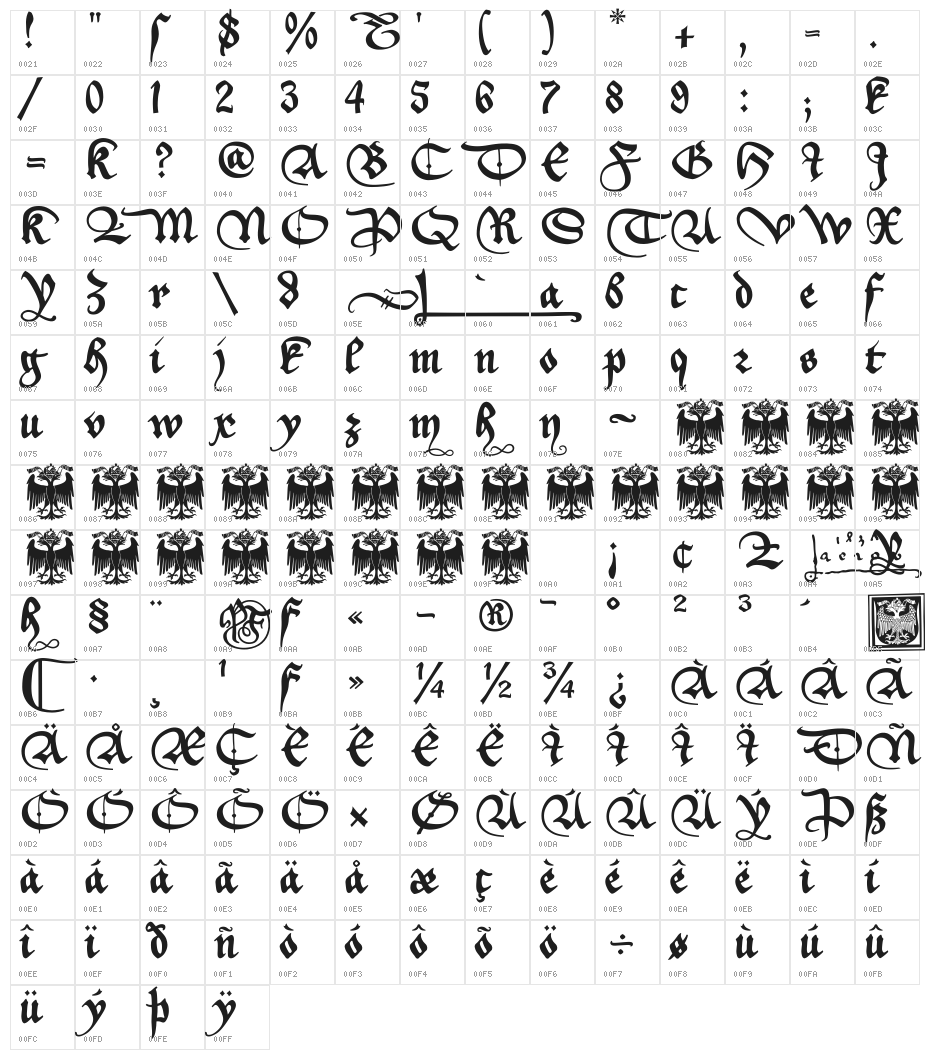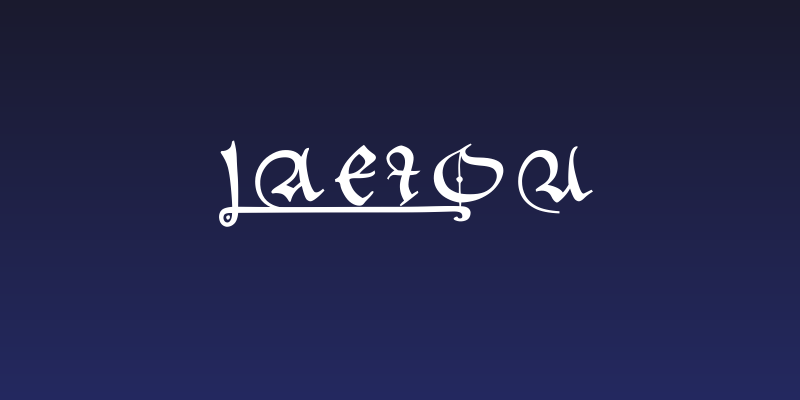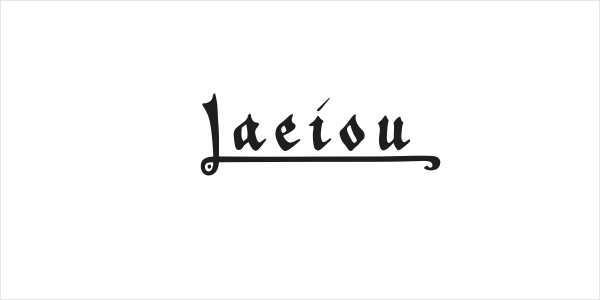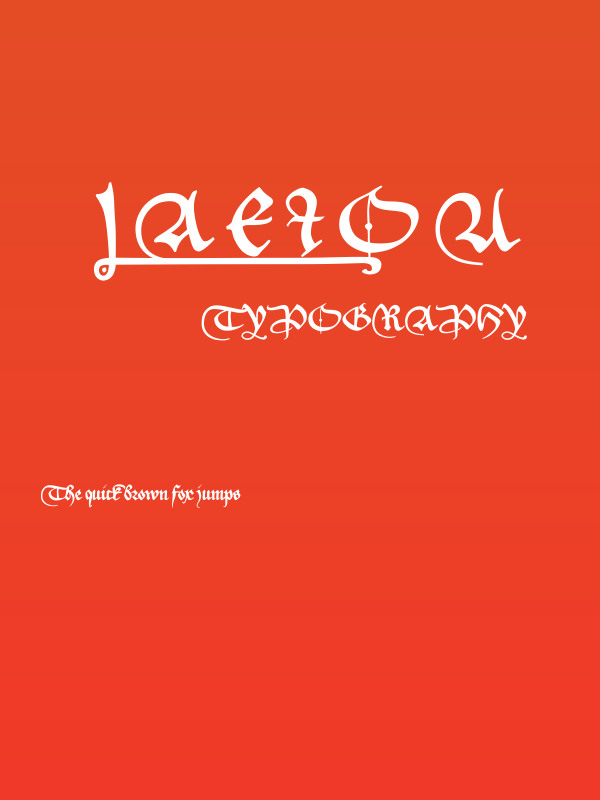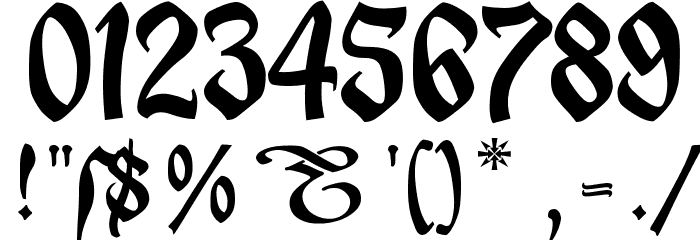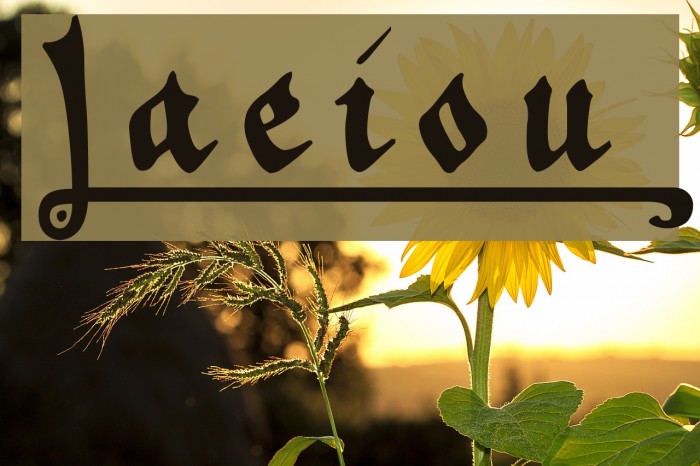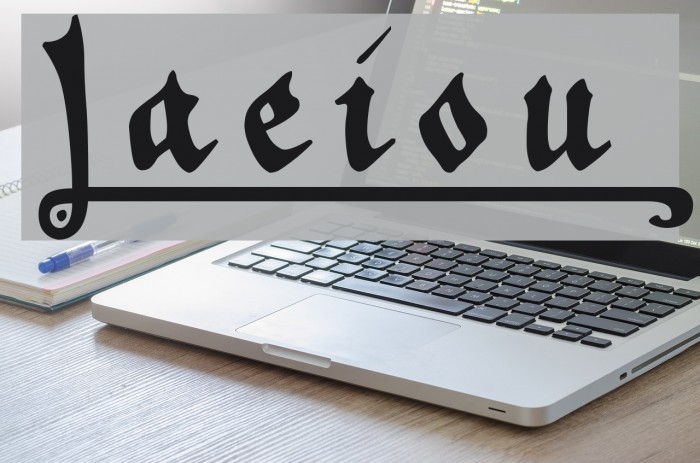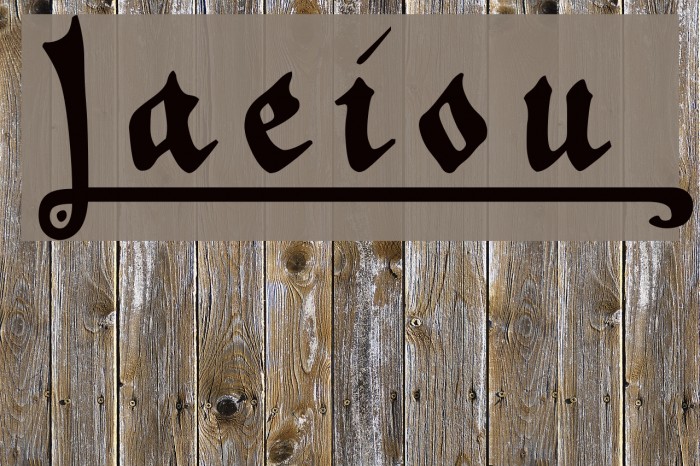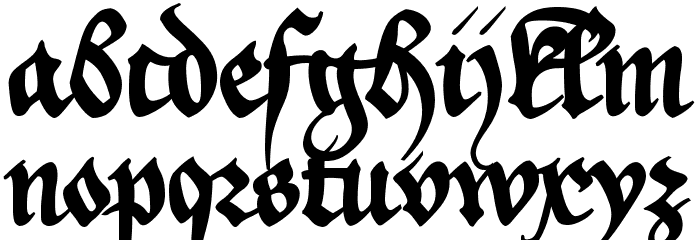
_a e i o u Font
_a e i o u Description
This font exhibits a classic blackletter style, characterized by its intricate and ornate design. The uppercase letters are bold and dramatic, with sharp, angular lines and elaborate flourishes that give them a medieval appearance. The lowercase letters maintain the same decorative quality, with a consistent stroke weight that enhances readability despite the complex design. The numerals are similarly styled, with a bold presence that complements the overall aesthetic. Special characters are crafted with the same attention to detail, ensuring a cohesive look across all glyphs. This font's historical and artistic qualities make it suitable for projects that require a touch of elegance and tradition.
| Proposed Projects | Ideal for certificates, invitations, book covers, and branding that require a historical or elegant touch. |